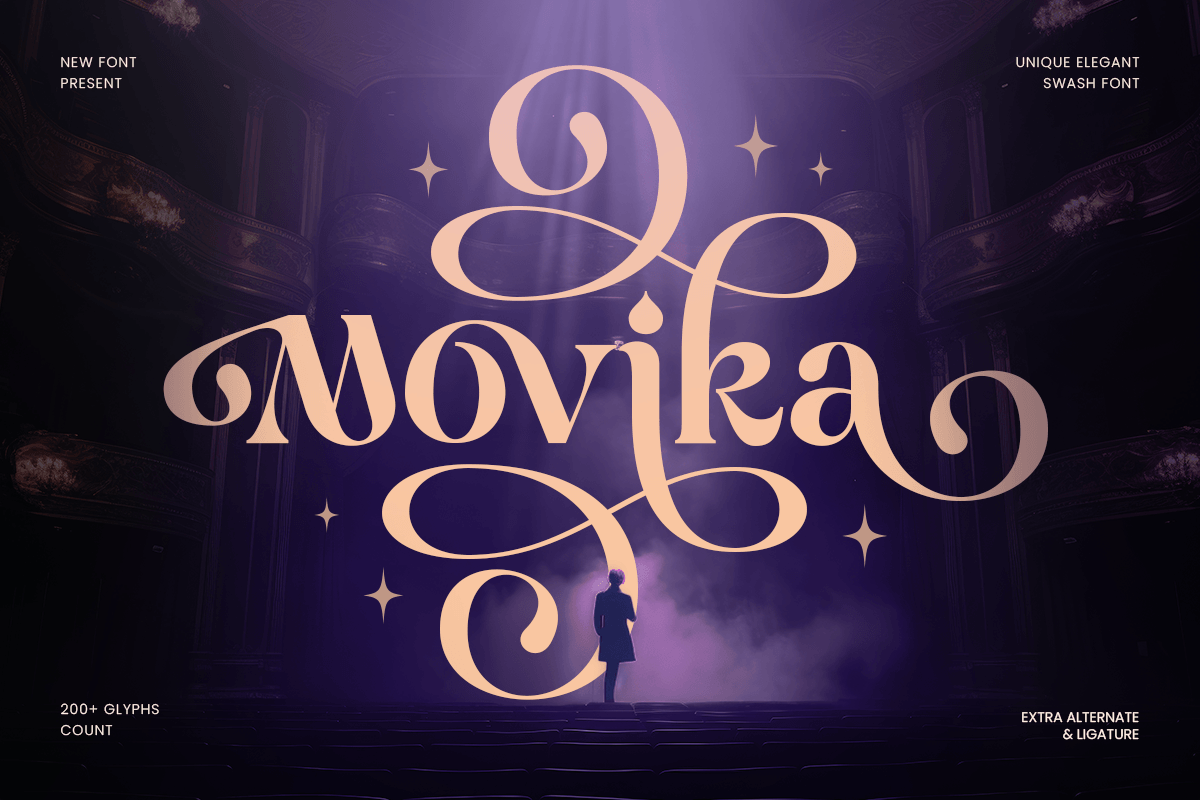
Movika
-Cinematic Elegant Romantic FontMovika - Cinematic Elegant Romantic Font
Movika is a unique elegant swash font crafted for graceful branding, refined typography, and stylish visual identity. With flowing curves, expressive swashes, and sophisticated letterforms, it brings a classy and memorable look to every design.
Designed for logos, wedding invitations, fashion branding, beauty packaging, boutique identity, editorial layouts, and social media graphics, Movika blends decorative elegance with modern readability.
Perfect for designers who want a stylish font with elegant movement, feminine charm, and premium personality.
Movika Font Features
Uppercase & lowercase
Elegant swash characters
Alternates & ligatures
Multilingual support
Professional kerning
Movika Font Perfect For
Logo design, wedding invitations, luxury branding, beauty packaging, fashion identity, boutique designs, editorial headlines, social media posts, product labels, and elegant typography projects.